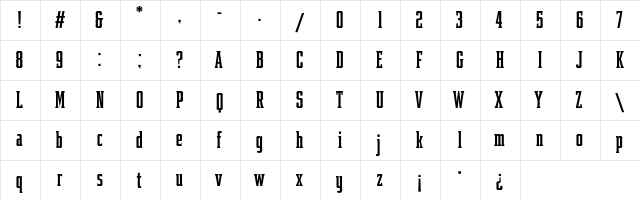
Samton Extra Condensed Bold
Extra Condensed Bold · Ilham Herry Type Supply Ilham Herry ·
Foundry Ilham Herry Type Supply
DesignerIlham Herry
Design Context for Samton Typeface
Samton is a composed and adaptable typeface that performs quietly and consistently across a wide range of design contexts. Its bold stroke weight gives it real presence on the page. Its narrow stance lets it pack a punch even in space-constrained designs.